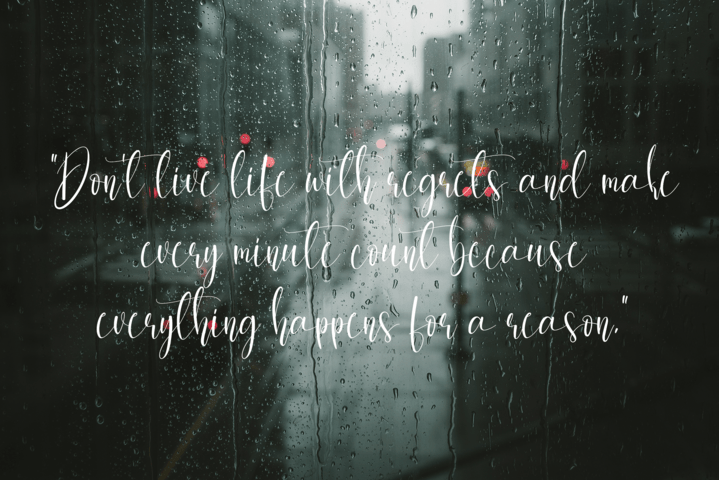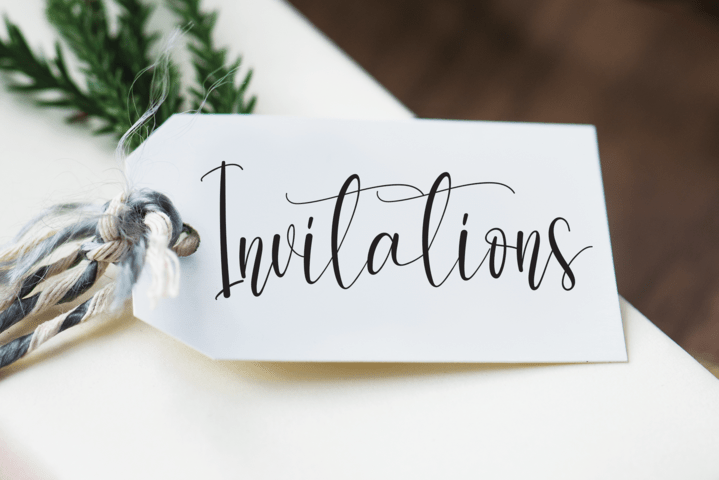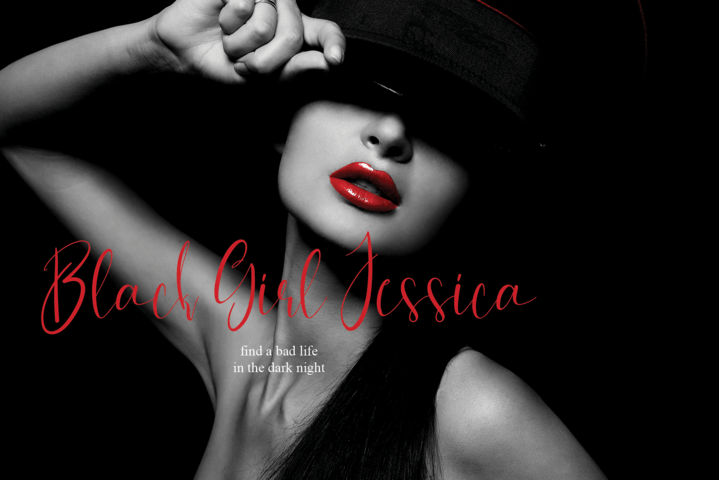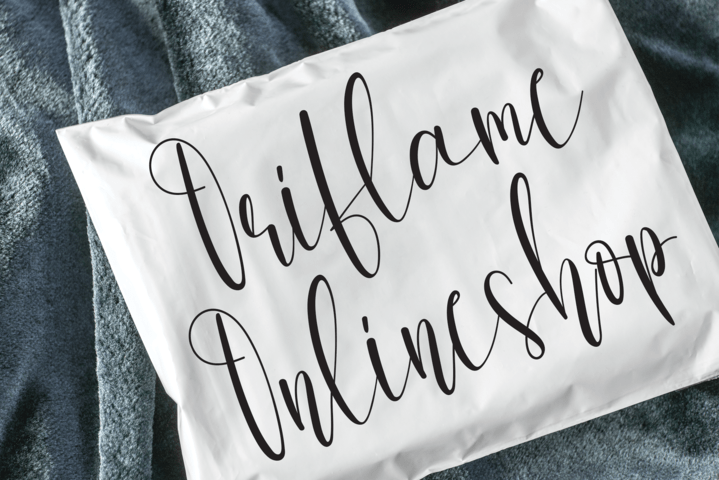
Christmas Uniform Font
Christmas Uniform Script Font
This is a handwriting and modern font, suitable for logos, badges, clothing, posters, fashion, t-shirt designs, magazines, and more.